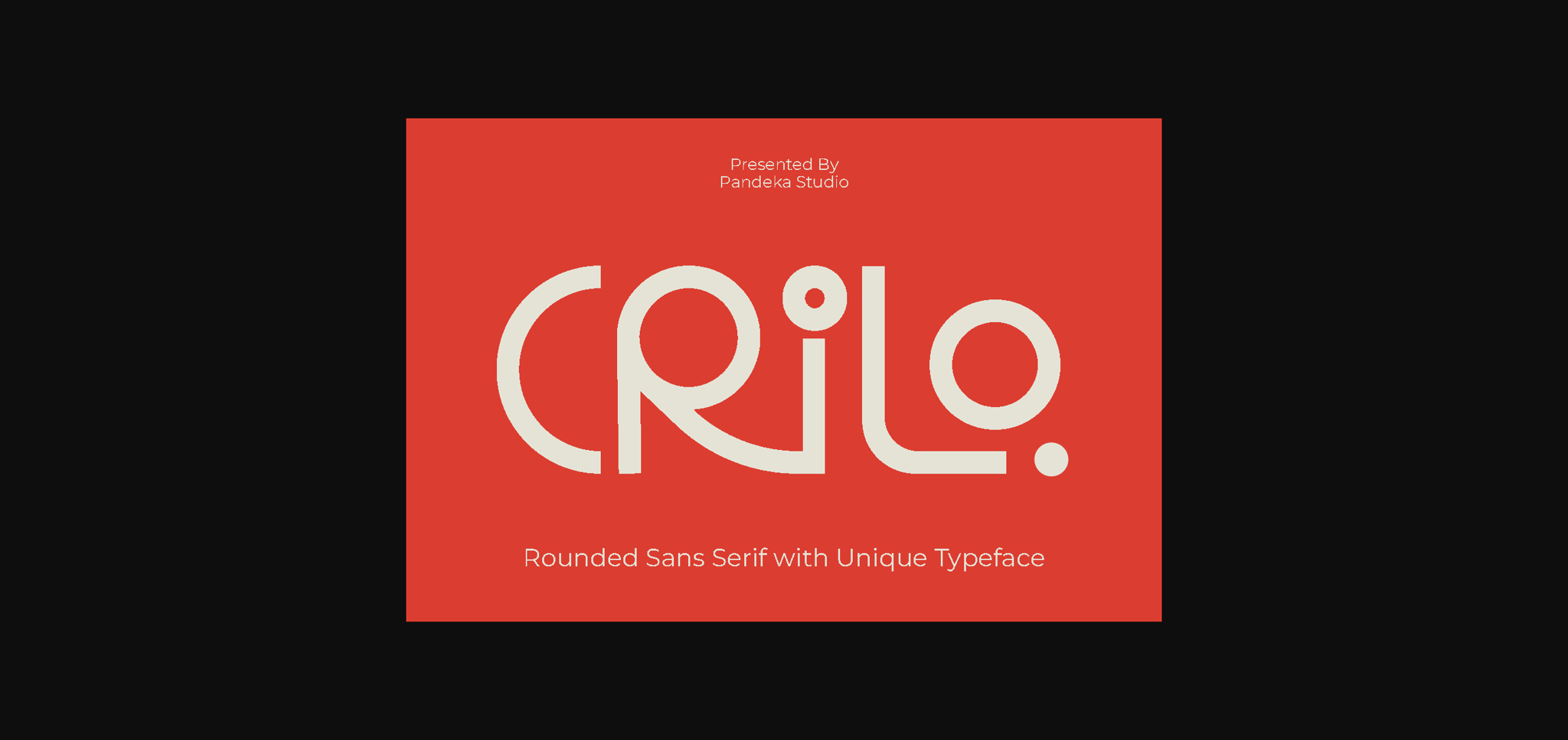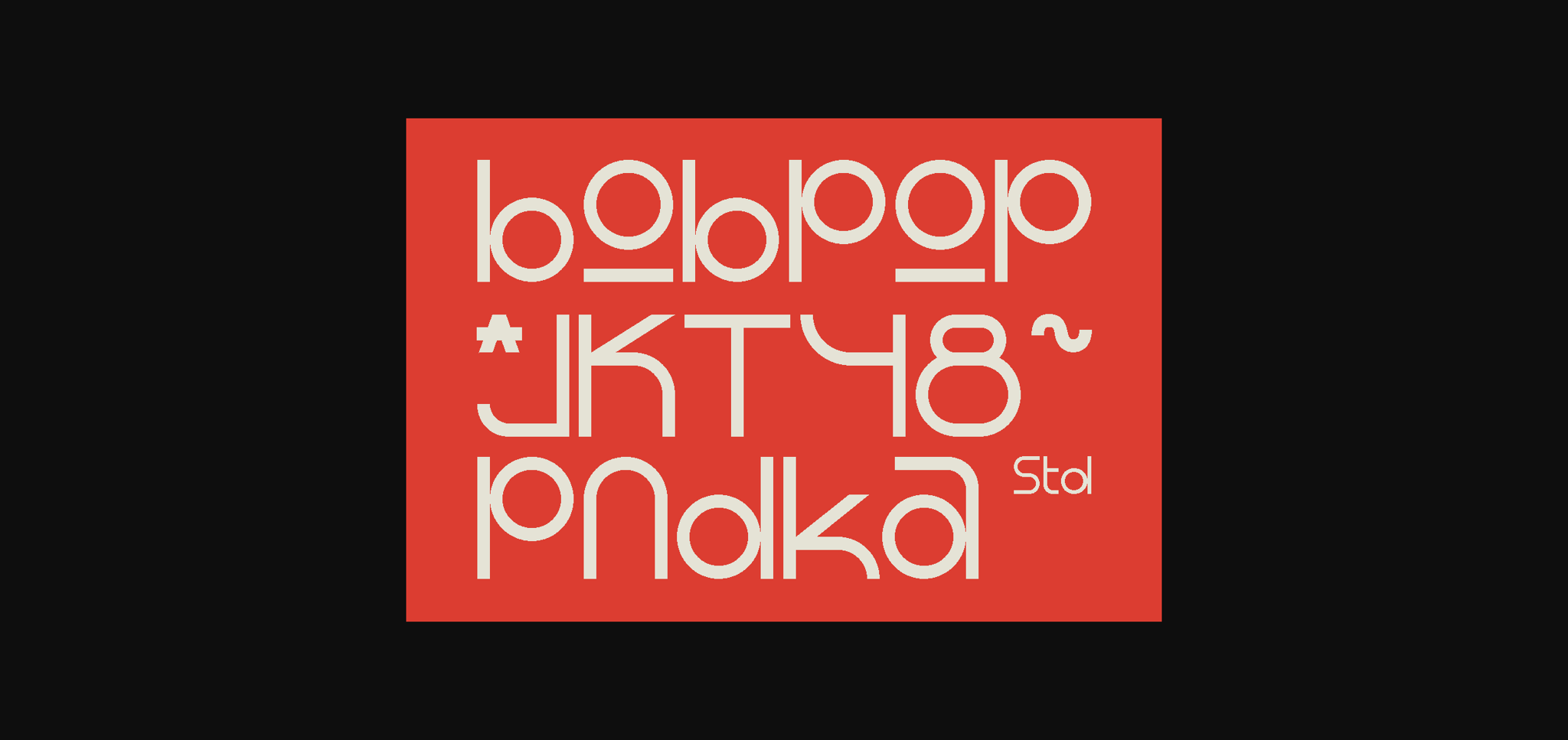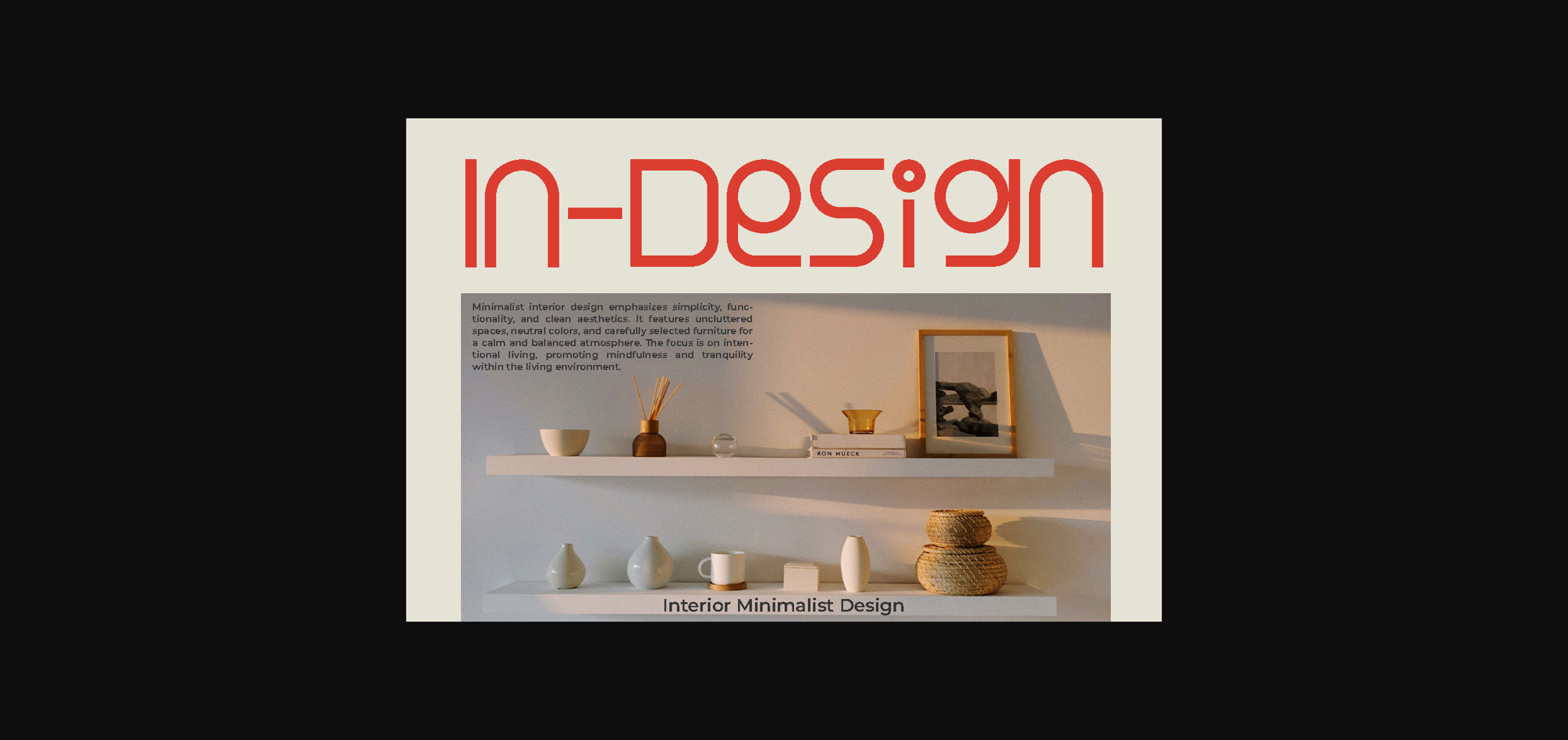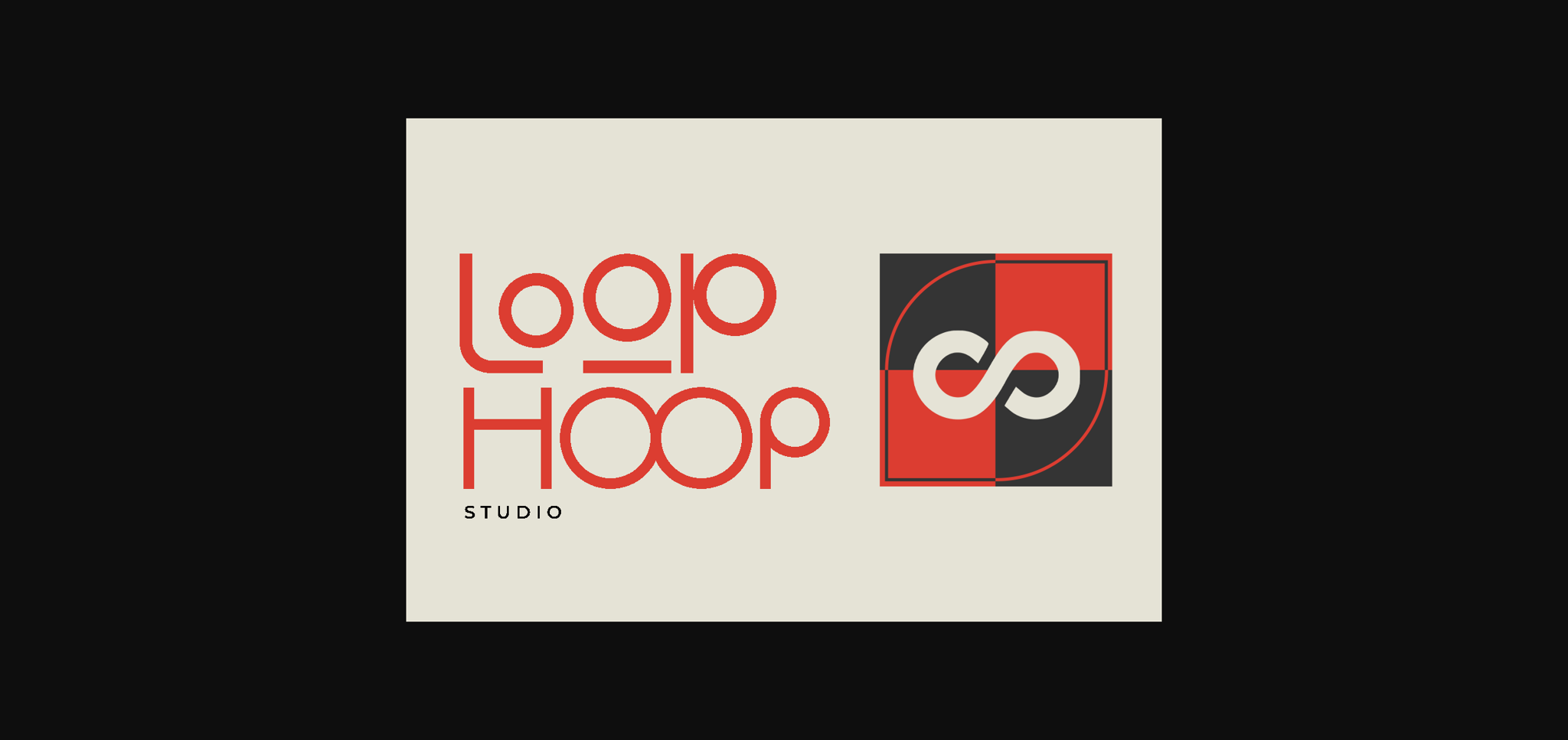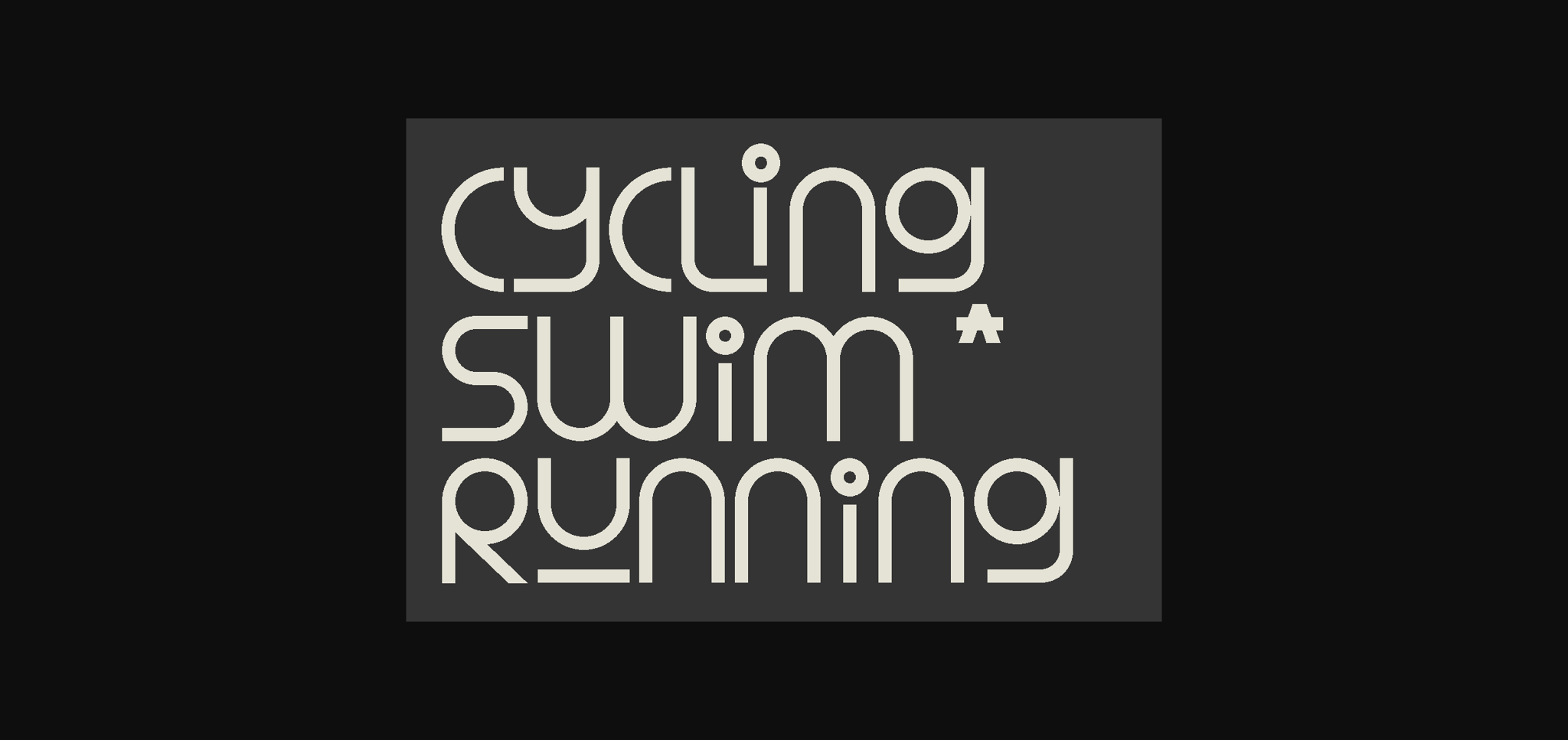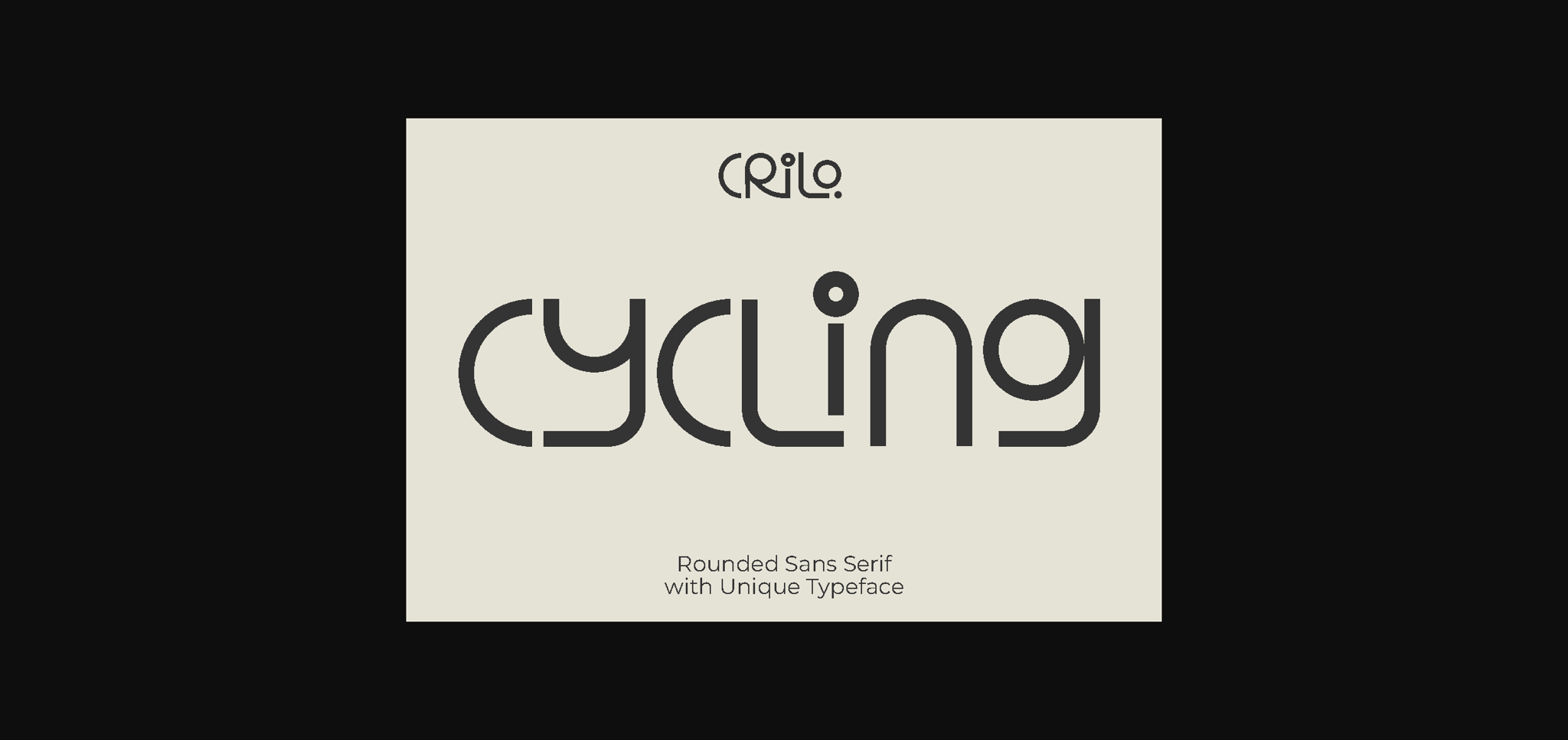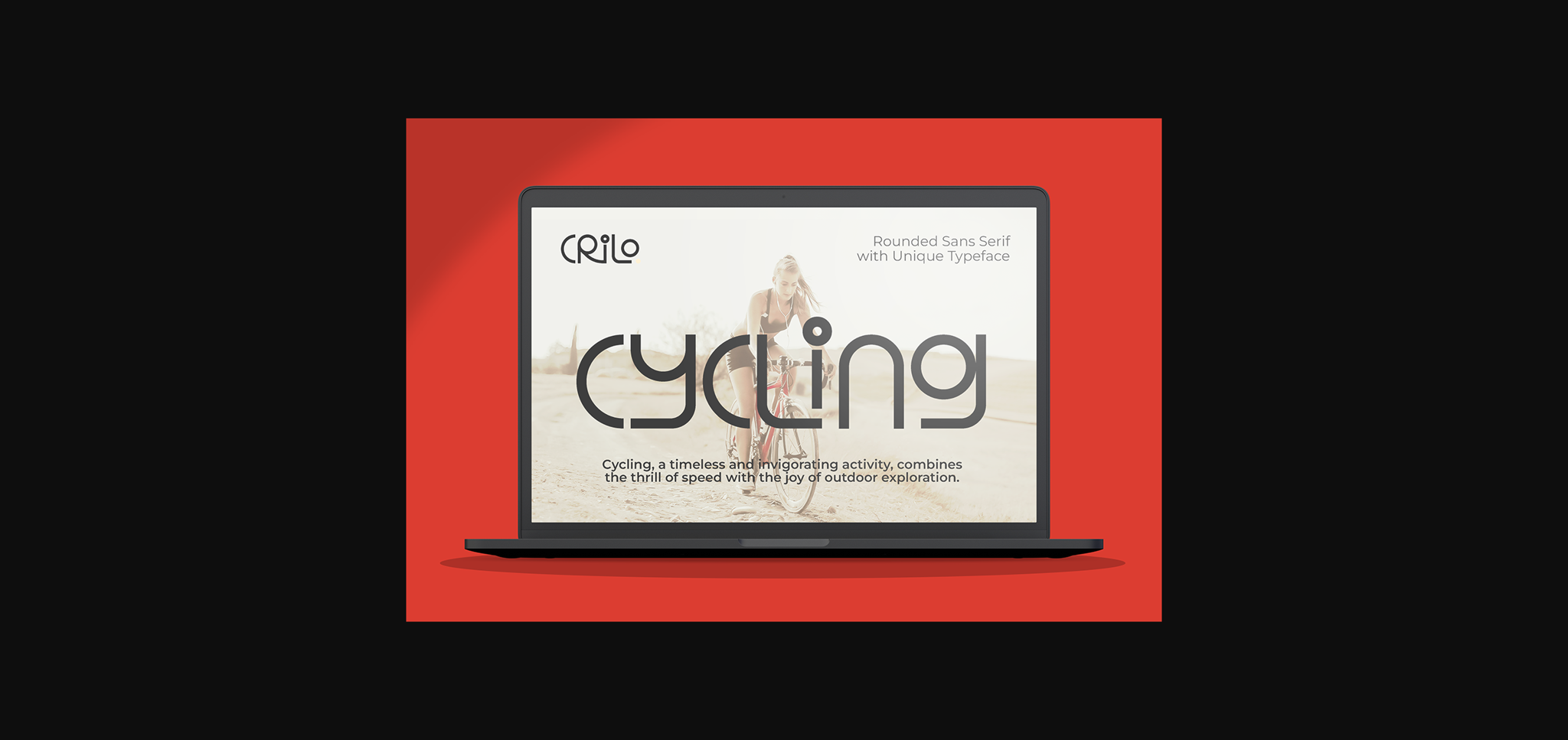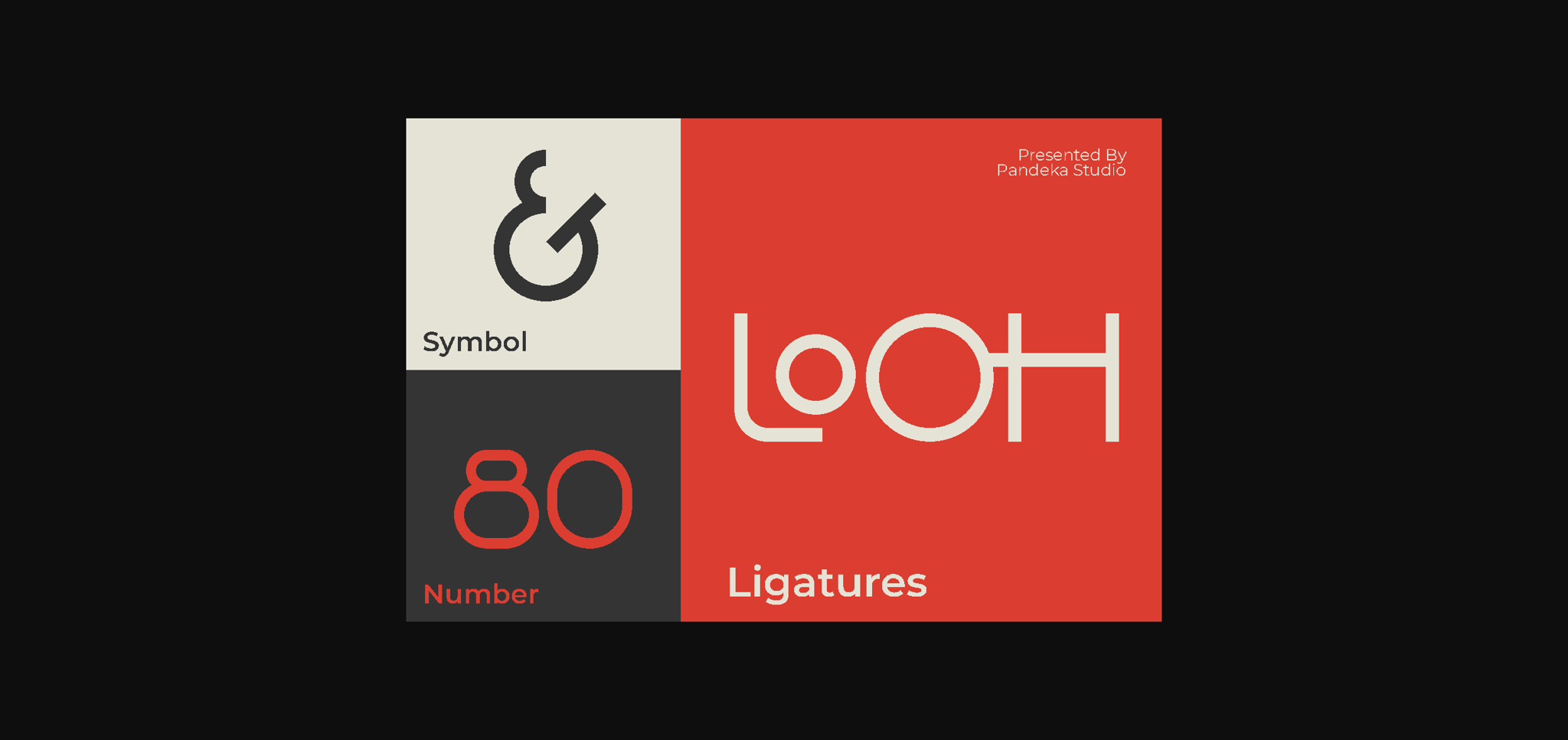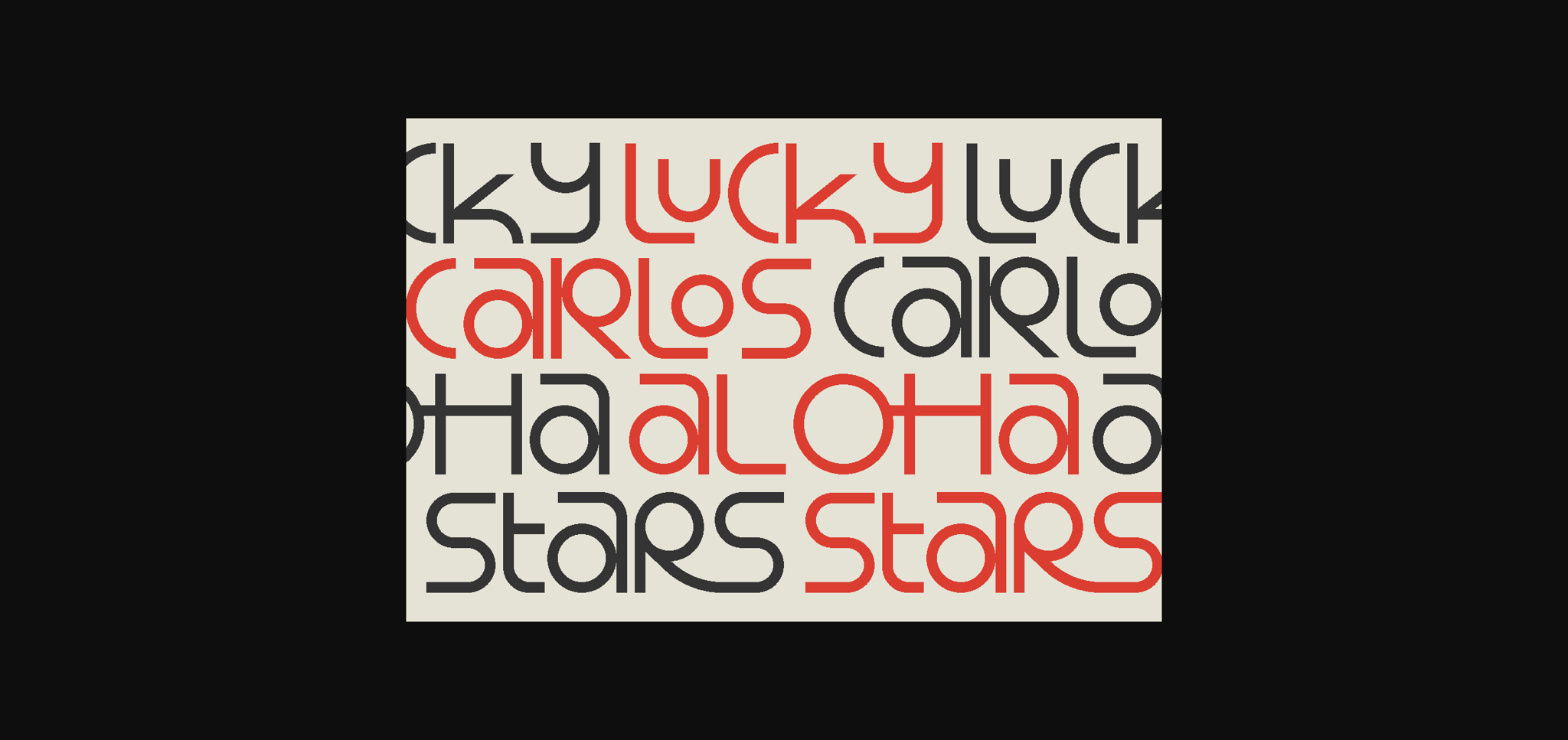
Crilo Font
About Crilo Font
Introducing Crilo, a fun and playful sans serif font! With its friendly vibe and modern style, Crilo adds a touch of whimsy to your designs. Perfect for creating eye-catching headings, logos, and more, this font is sure to bring a smile to your audience’s face. Let Crilo unleash your creativity and infuse your projects with personality!